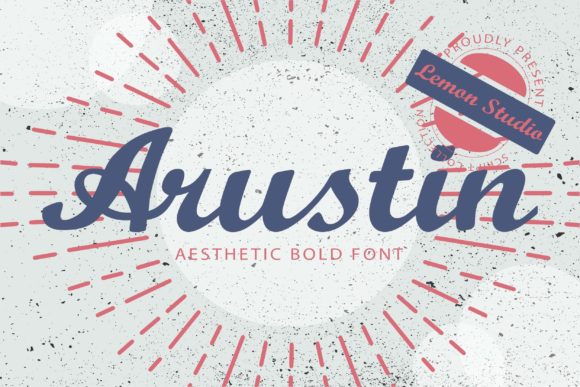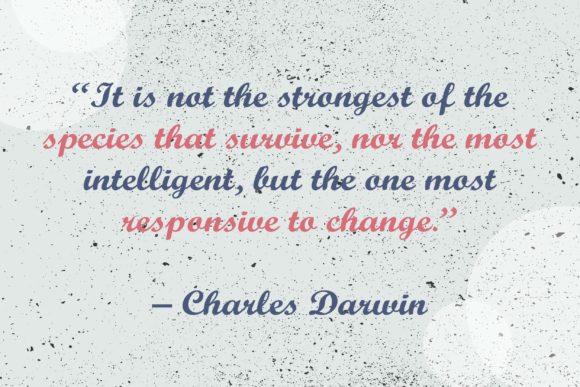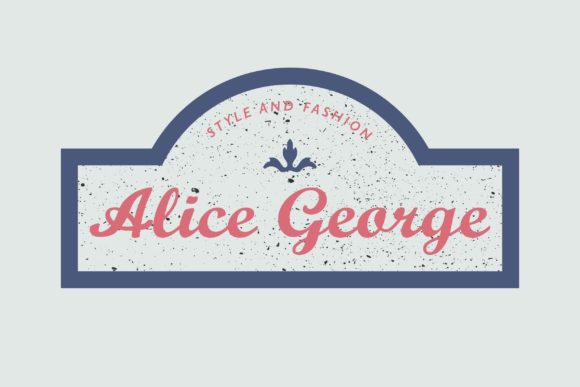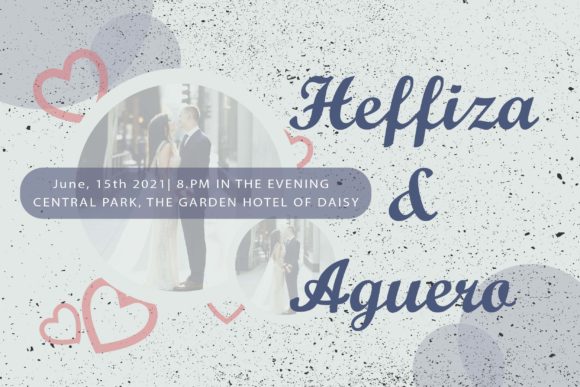
Arustin Font: Bold Handwritten Font for Logos & Creative Branding
About the Arustin Font
Presenting Arustin Font, a unique and stylish typeface that will make your work stand out. Arustin is a gorgeous and bold handwritten font, crafted to give your headlines and logotype projects a stylish touch. This font reads as strong, confident, and dynamic and can add tons of nostalgic character to your designs.
Arustin excels in headline applications, logotypes, and short, impactful statements on packaging or posters. Its bold strokes command attention, making it ideal for projects requiring a strong visual presence. However, its handcrafted nature makes it unsuitable for body text or lengthy paragraphs; readability suffers at smaller sizes.
The font’s confident, dynamic personality pairs well with clean sans-serif fonts like Montserrat or Open Sans for a balanced contrast. For a more vintage feel, consider pairing it with a classic serif like Garamond or Didot. Avoid pairing it with other highly decorative or script fonts to prevent visual clutter.
Arustin is best suited for brands projecting strength, confidence, and a touch of nostalgia. Think handcrafted goods, boutique businesses, or projects with a vintage-inspired aesthetic. Its bold strokes are perfect for creating a memorable brand identity.
Arustin Font Usage Examples
Arustin Font Example